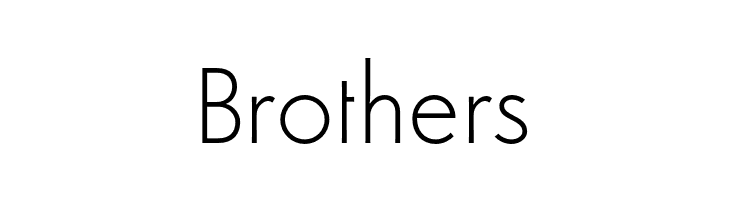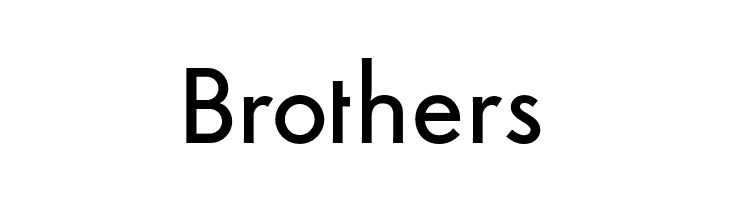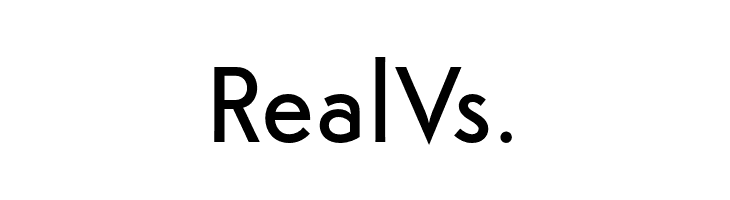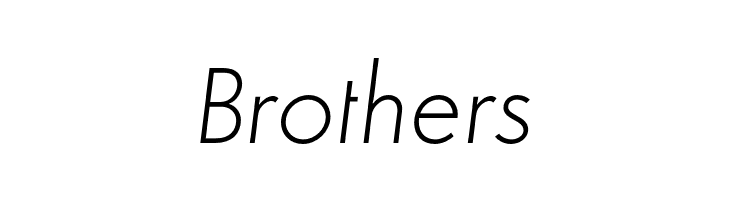
A bold, decorative font with a hand-drawn, textured style.
A whimsical, hand-drawn font with wavy, textured outlines and playful character shapes.
A bold, angular font with a modern yet traditional aesthetic.
A modern, geometric font with double-line strokes and a sophisticated appearance.
A bold 3D font with a modern, geometric style and excellent readability.
A geometric, modern font with a unicase style and dotted accents.
A bold, geometric sans-serif typeface with a modern and minimalistic design.
A clean, geometric sans-serif font with a modern and minimalist style.
A sleek, light italic font with a modern and elegant style.
A modern, geometric sans-serif font with a clean and professional look.
A modern, geometric italic typeface with medium contrast and a sleek, condensed style.
A bold, geometric font with a unique shadow effect for a three-dimensional look.
A modern serif font with elegant curves and balanced proportions.
A modern, clean, and versatile font with excellent readability.
A classic serif font with bold, clear characters and strong readability.
A modern, sans-serif font with clean lines and balanced proportions.
A modern sans-serif font with clean lines and balanced proportions.
A modern serif font with balanced proportions and elegant strokes.
A modern, clean font with balanced characters and strong readability.
A modern sans-serif font with clean lines and medium contrast, perfect for versatile use.
A modern, sans-serif font with clean lines and medium contrast, ideal for readability.
A modern, clean sans-serif font with excellent legibility and versatility.
A modern, clean sans-serif font with uniform stroke width and excellent readability.
A bold, modern sans-serif font with clean lines and excellent readability.
A modern sans-serif font with clean, uniform strokes and excellent readability.
A modern, clean sans-serif font with balanced spacing and consistent stroke width.
A modern sans-serif font with clean, balanced letterforms and consistent stroke widths.
A bold, modern sans-serif typeface with excellent readability.
A modern sans-serif font with clean lines and balanced spacing.